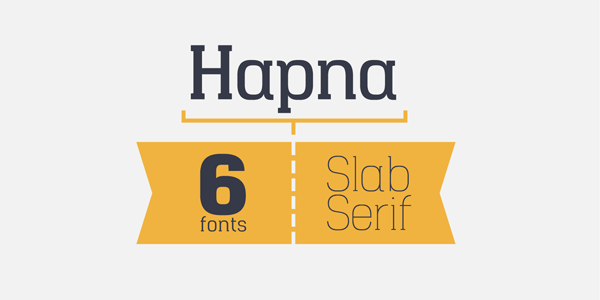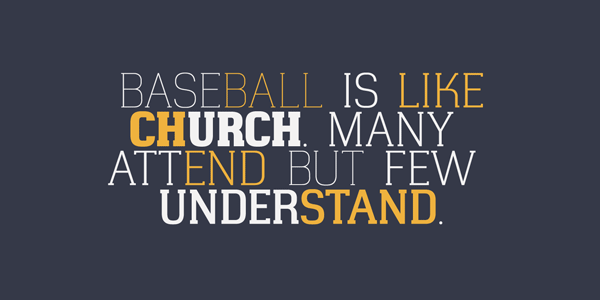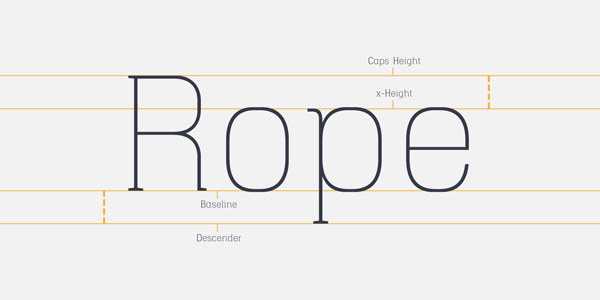
Hapna Type Family.
Hapna is a trendy geometric slab serif font family designed in 2013 by Mariya V. Pigoulevskaya (Font Publisher: The Northern Block). This unique type family was created as an alternative to common types of slab fonts. Hapna’s typeface combines a contemporary font geometry with a traditional slab serif style. Its shape is inspired by the graphic language of the 1950s. The full Hapna type family includes 6 weights and is available as webfont and desktop font.